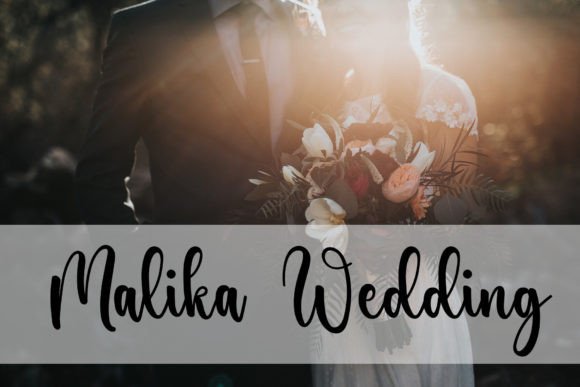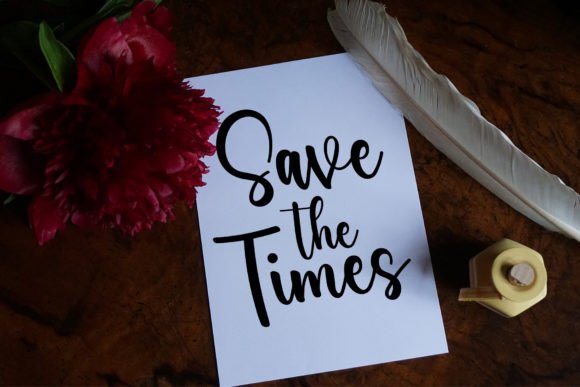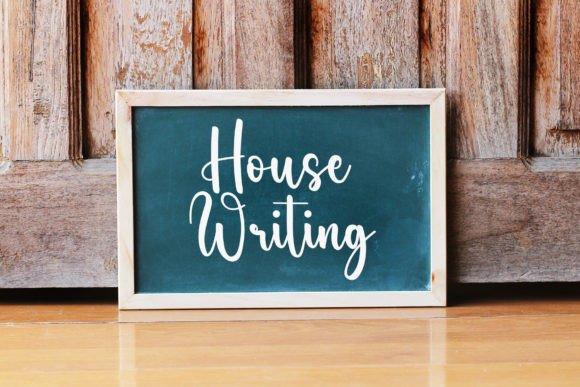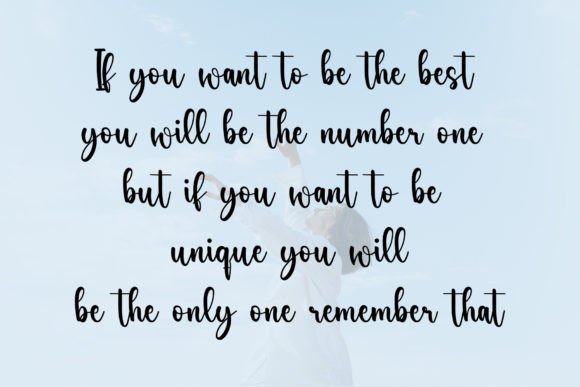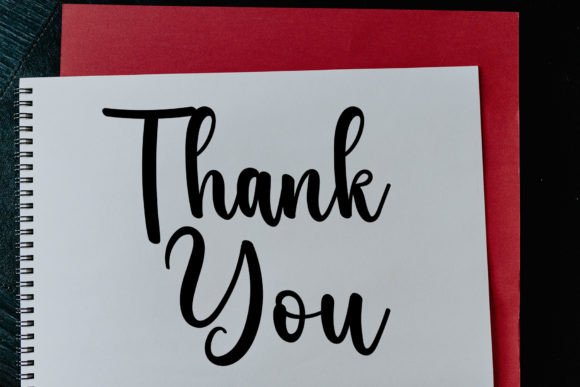
Introducing Grow Font: The Playfully Handmade Display Font to Elevate Your Designs
Are you tired of using the same old fonts in your designs? Look no further than Grow Font, a beautifully crafted handwritten font that adds a playful touch to any project. With its unique and carefree personality, Grow Font is the perfect choice for designers and crafters looking to bring a fresh and creative spin to their work.
The Story Behind Grow Font
Grow Font is more than just a font – it’s a reflection of the joy and playfulness that comes with creating something by hand. Masterfully designed to evoke a sense of whimsy and fun, this display font is perfect for adding a personal touch to your designs. Whether you’re working on a branding project, a craft tutorial, or a social media graphic, Grow Font is sure to bring a smile to your face and a spark to your creativity.
What Makes Grow Font So Special?
So, what sets Grow Font apart from other fonts on the market? For starters, its handcrafted feel gives it a unique and organic look that’s hard to replicate with digital fonts. The result is a font that feels approachable, friendly, and genuinely handmade. Additionally, Grow Font’s versatility makes it suitable for a wide range of design applications, from titles and headings to quotes and phrases.
Endless Design Possibilities with Grow Font
One of the best things about Grow Font is its incredible flexibility. Whether you’re designing a logo, a poster, or a social media graphic, this font can be used to add a playful touch to your work. Here are just a few ideas to get you started:
- Create eye-catching titles and headings for your blog or website
- Add a personal touch to your branding materials, such as business cards and brochures
- Design fun and engaging social media graphics, like quotes and promotions
- Make your craft tutorials and patterns stand out with custom headings and titles
Why Designers and Crafters Love Grow Font
Grow Font has quickly become a favorite among designers and crafters, and it’s easy to see why. This font offers a unique combination of playfulness and sophistication that’s hard to find in other fonts. Here are just a few reasons why Grow Font has become a go-to choice for creatives:
- It’s easy to read and understand, even at small sizes
- It adds a touch of personality to any design
- It’s versatile enough to be used in a wide range of applications
- It’s perfect for creating custom, handmade-style designs
Tips for Using Grow Font in Your Designs
Now that you’re excited about Grow Font, here are a few tips for using it in your designs:
- Pair Grow Font with other fonts to create a unique and eye-catching combination
- Use Grow Font to add a playful touch to your designs, but don’t be afraid to mix it up with other styles and fonts
- Take advantage of Grow Font’s versatility by using it in a variety of design applications
Grow Font is a one-of-a-kind display font that’s sure to bring a playful touch to your designs. With its unique, handmade feel and incredible versatility, this font is perfect for designers and crafters looking to elevate their work. Whether you’re creating branding materials, social media graphics, or craft tutorials, Grow Font is the perfect choice for adding a touch of personality and whimsy to your designs.